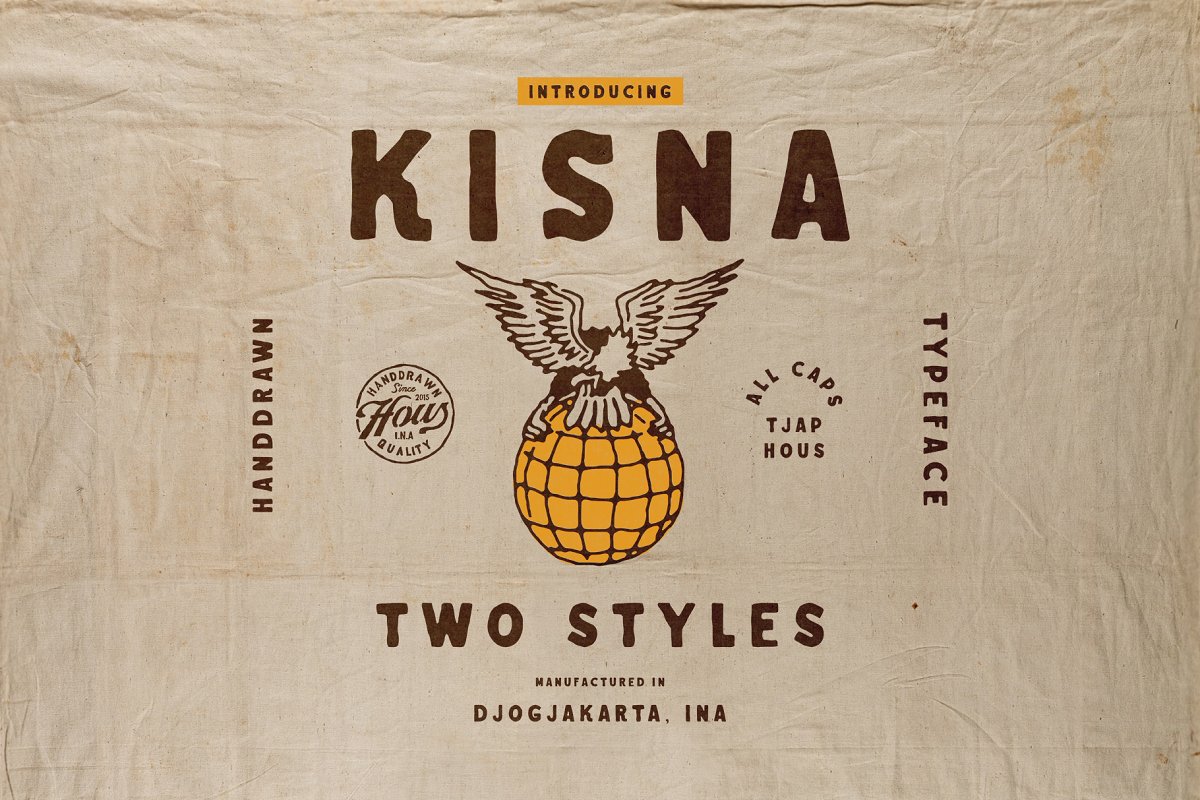
INTRODUCINGKISNA HANDDRAWN TYPEFACE inspired by 1920’s graphics, Comes with two styles regular and stamp style, Free 6 logo templates and 20 illustrations!You will get:Kisna Reguler (OTF and TTF)Kisna Stamp (OTF and TTF)Kisna Illustrations (AI and EPS)Kisna Logo Templates (AI and EPS)Hope you enjoy the font! Feel free to comment if you have any thoughts or feedback